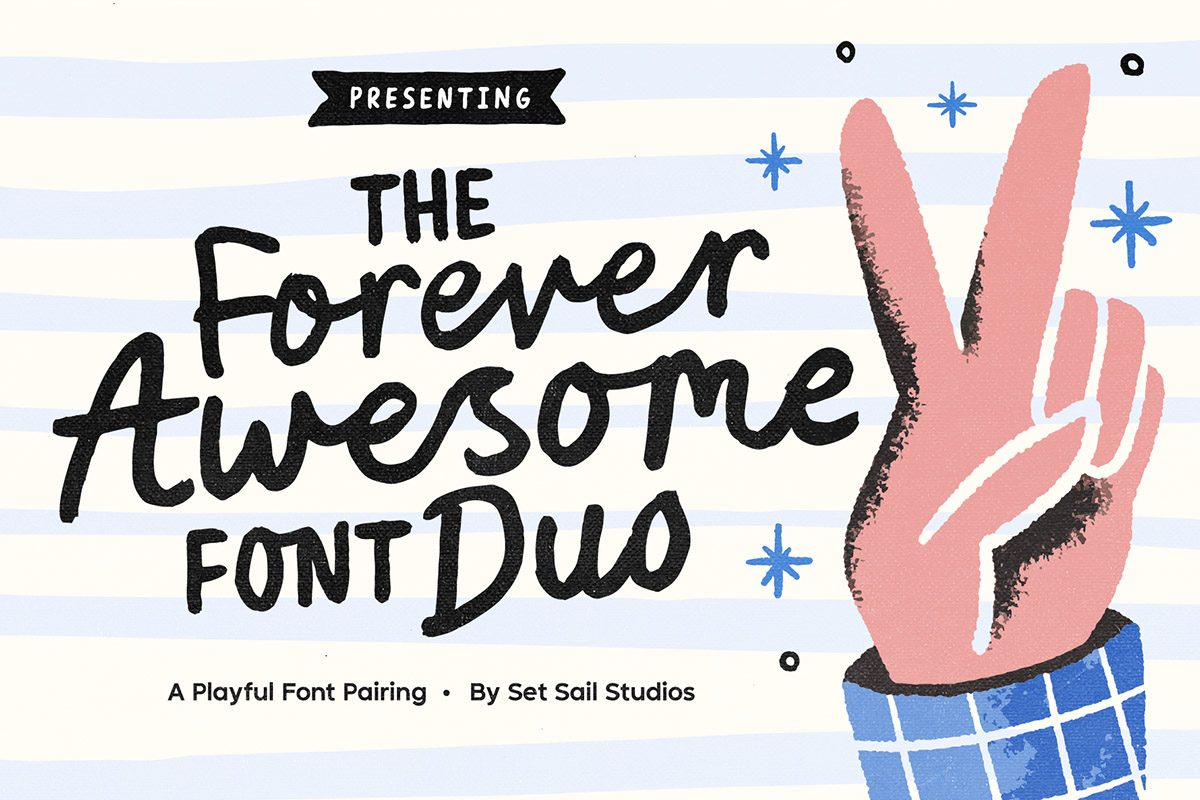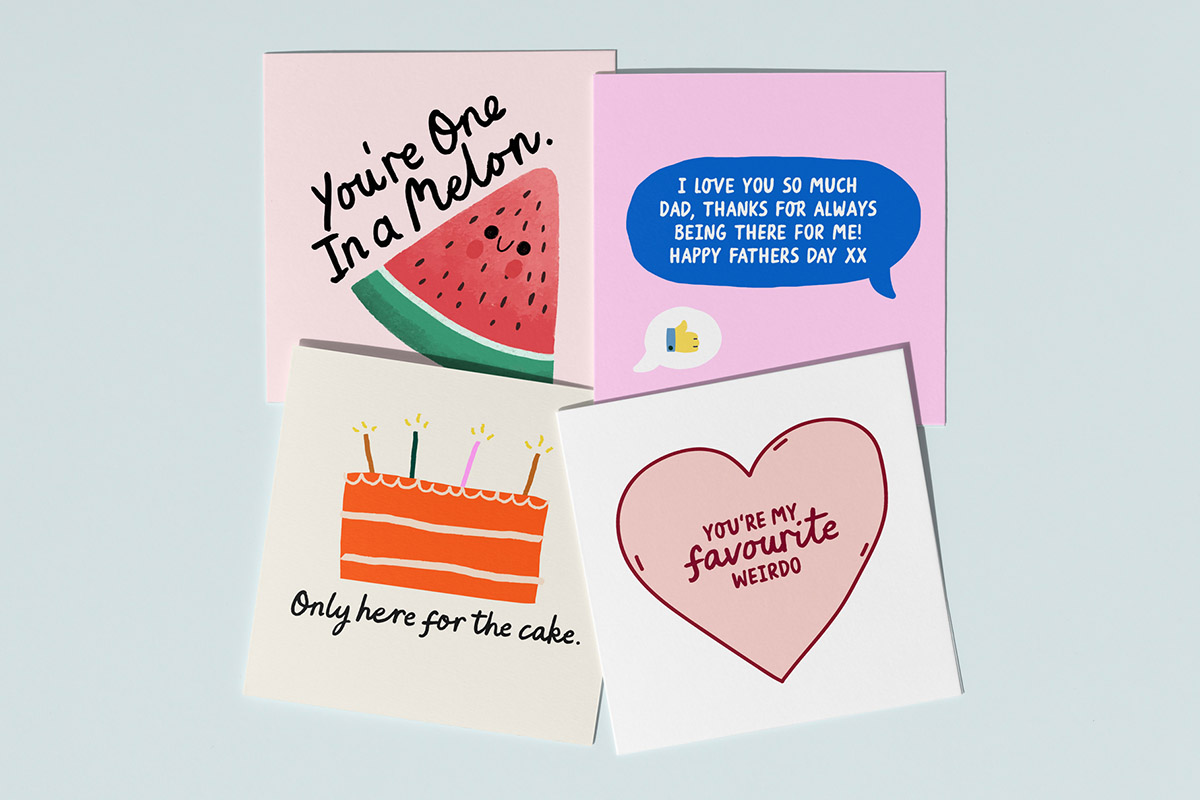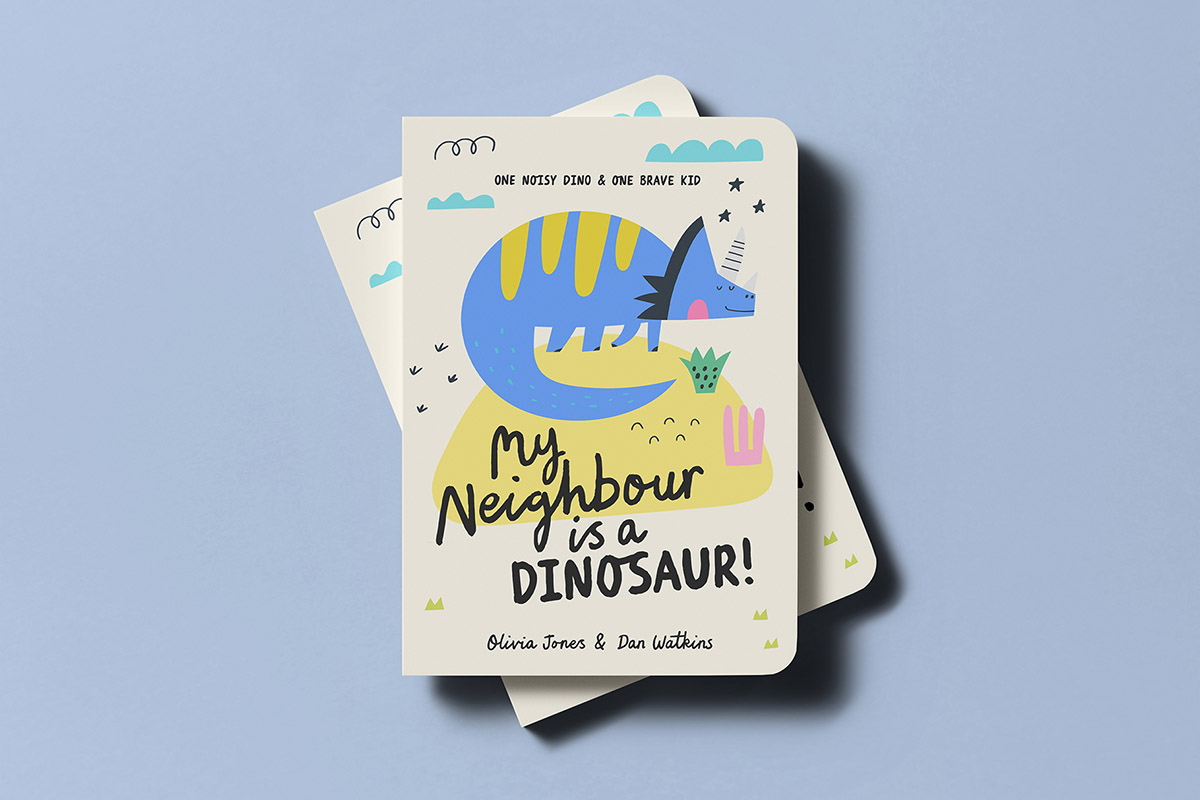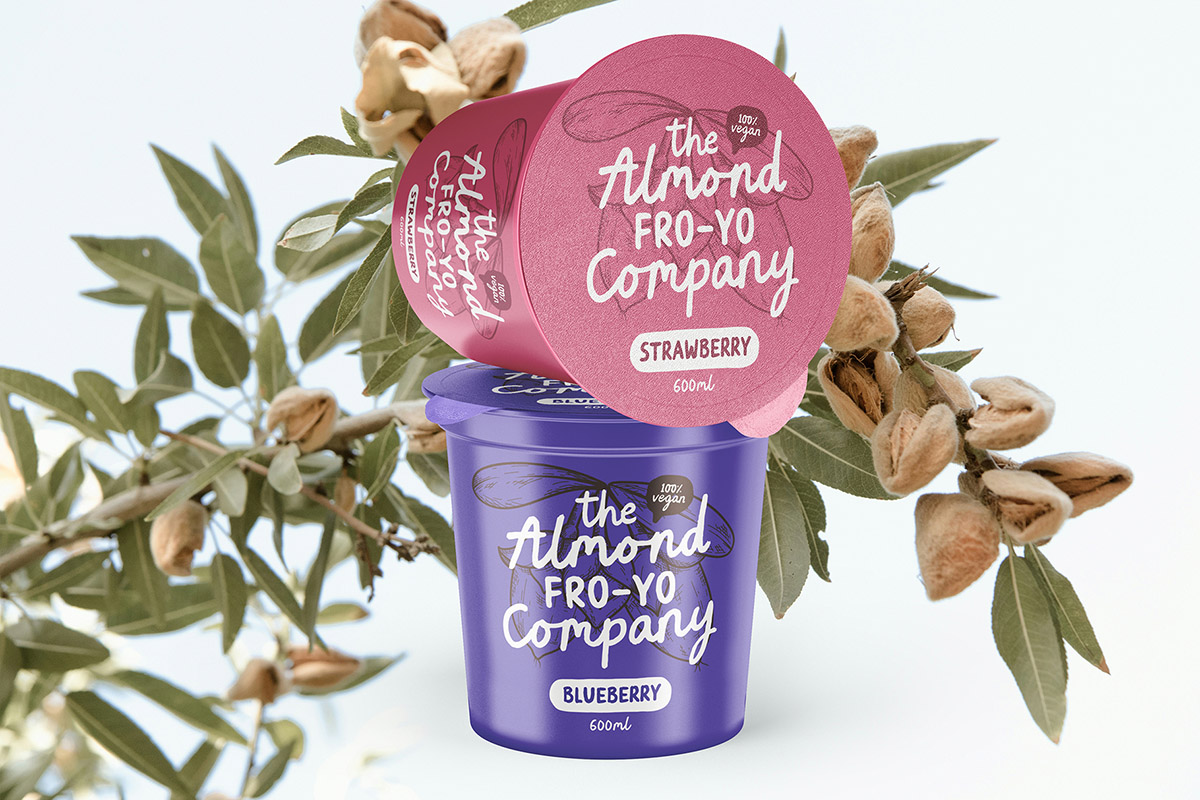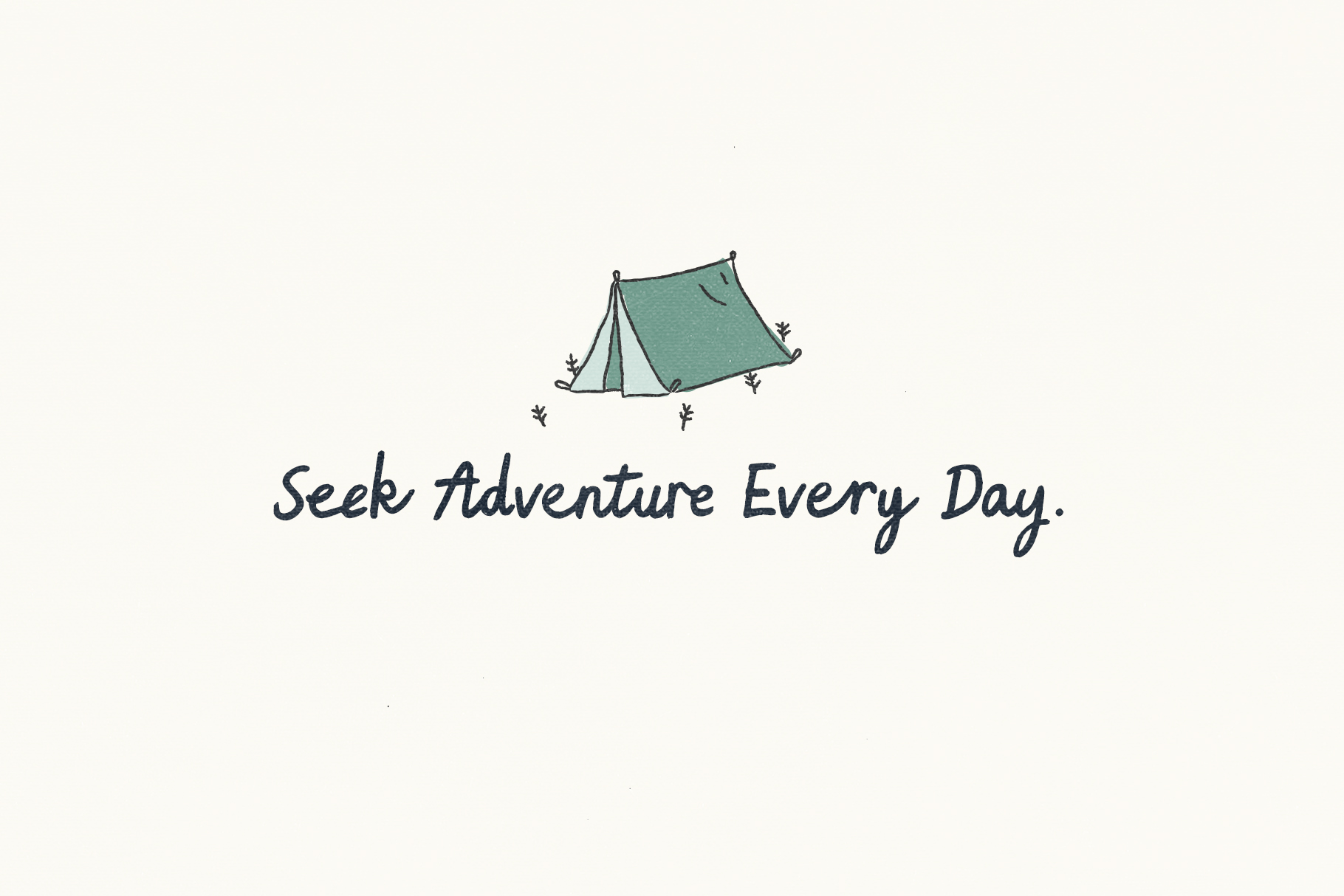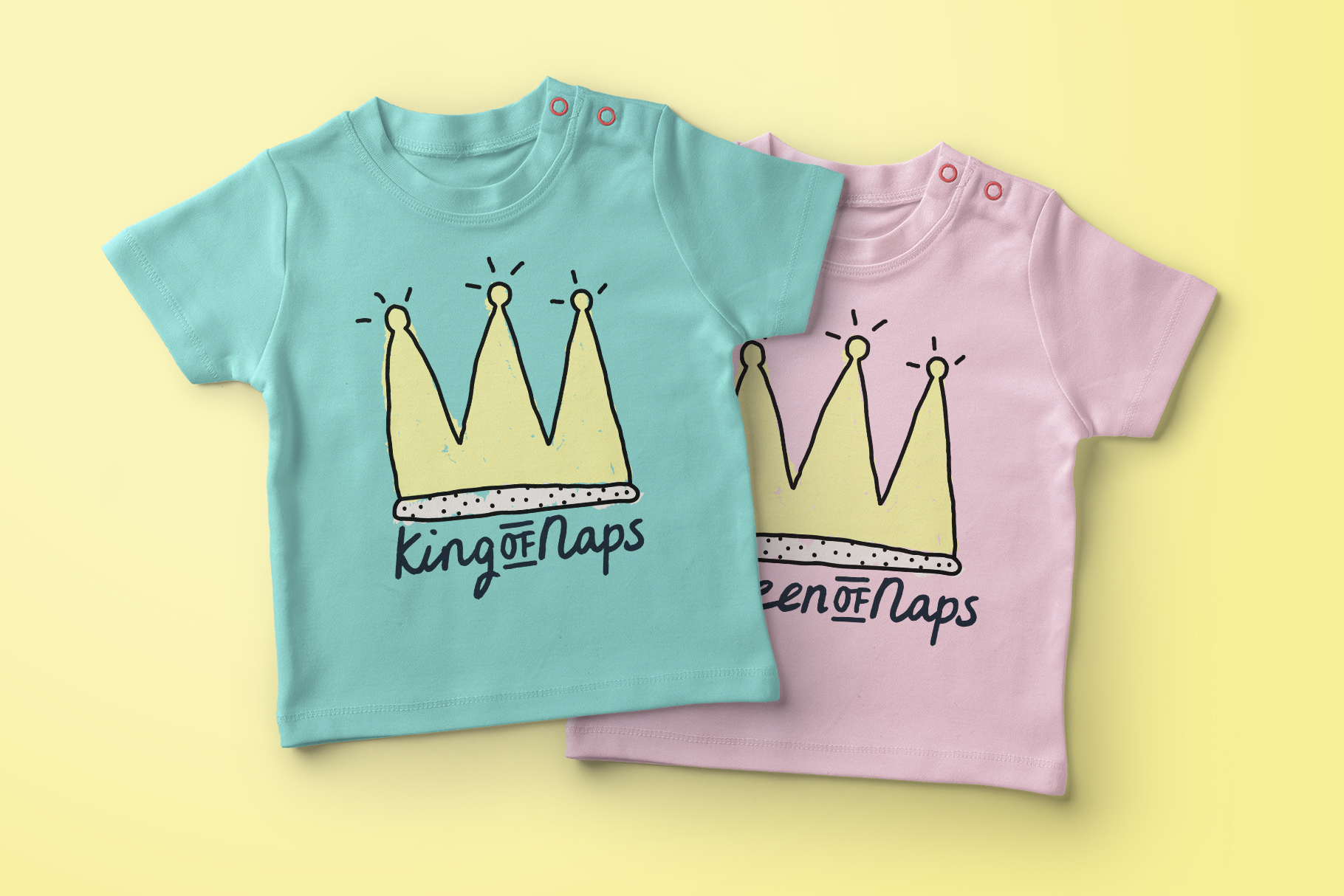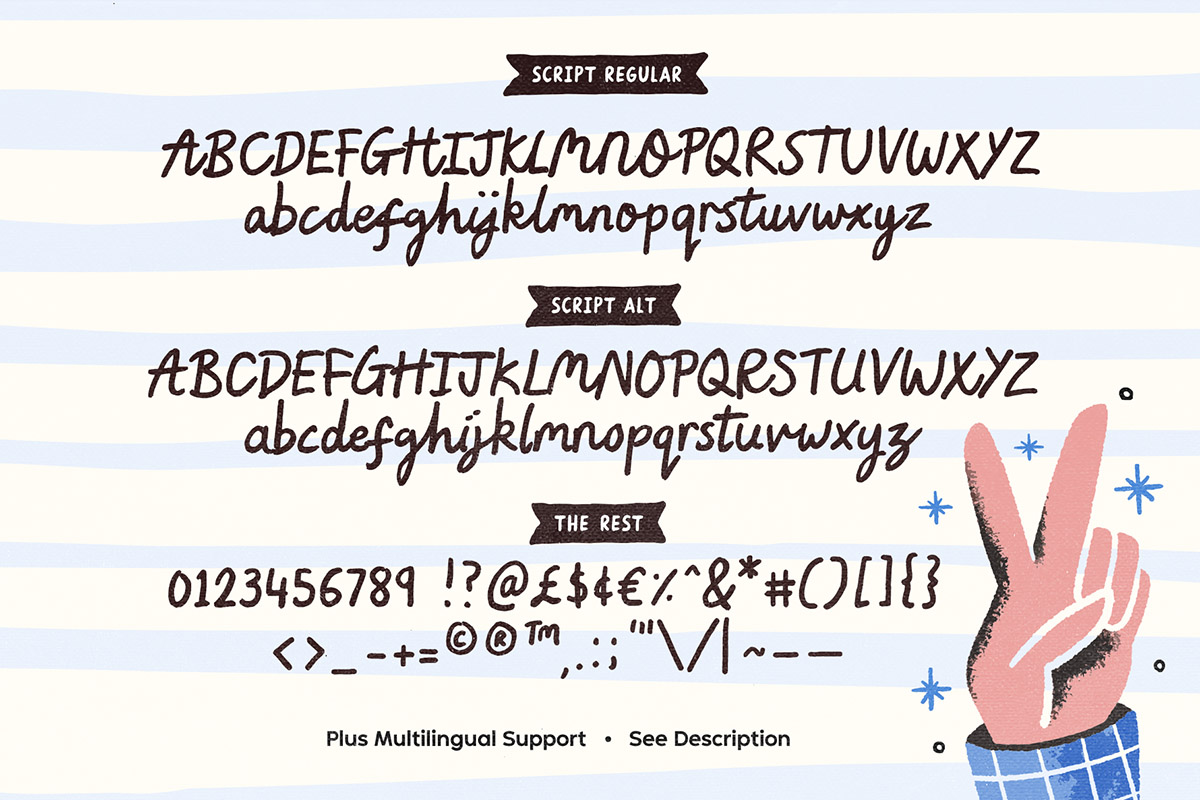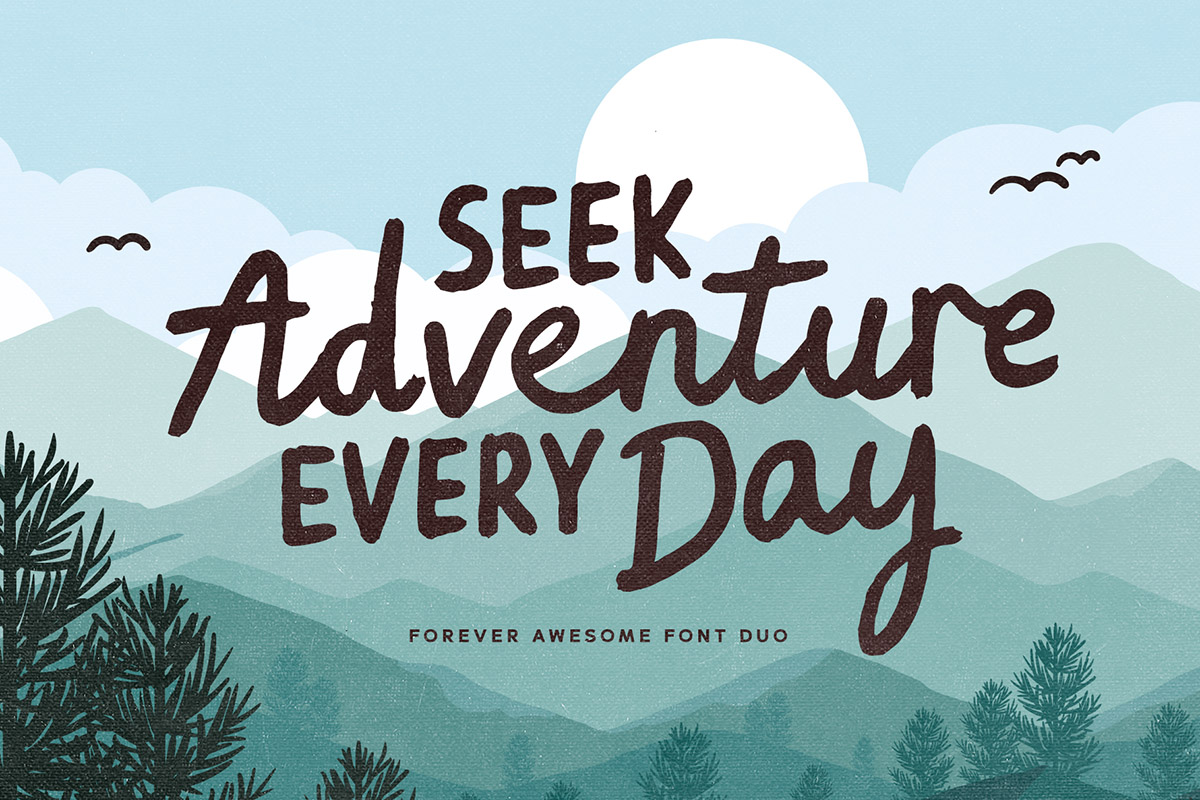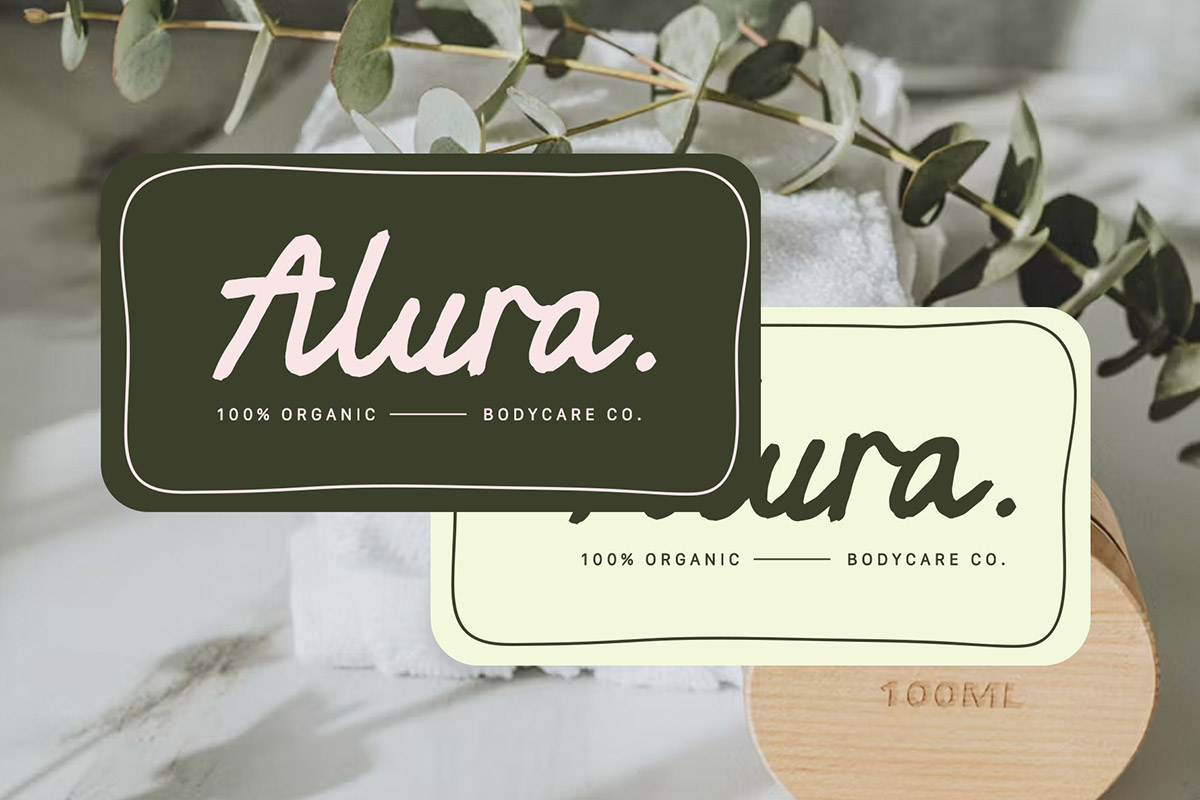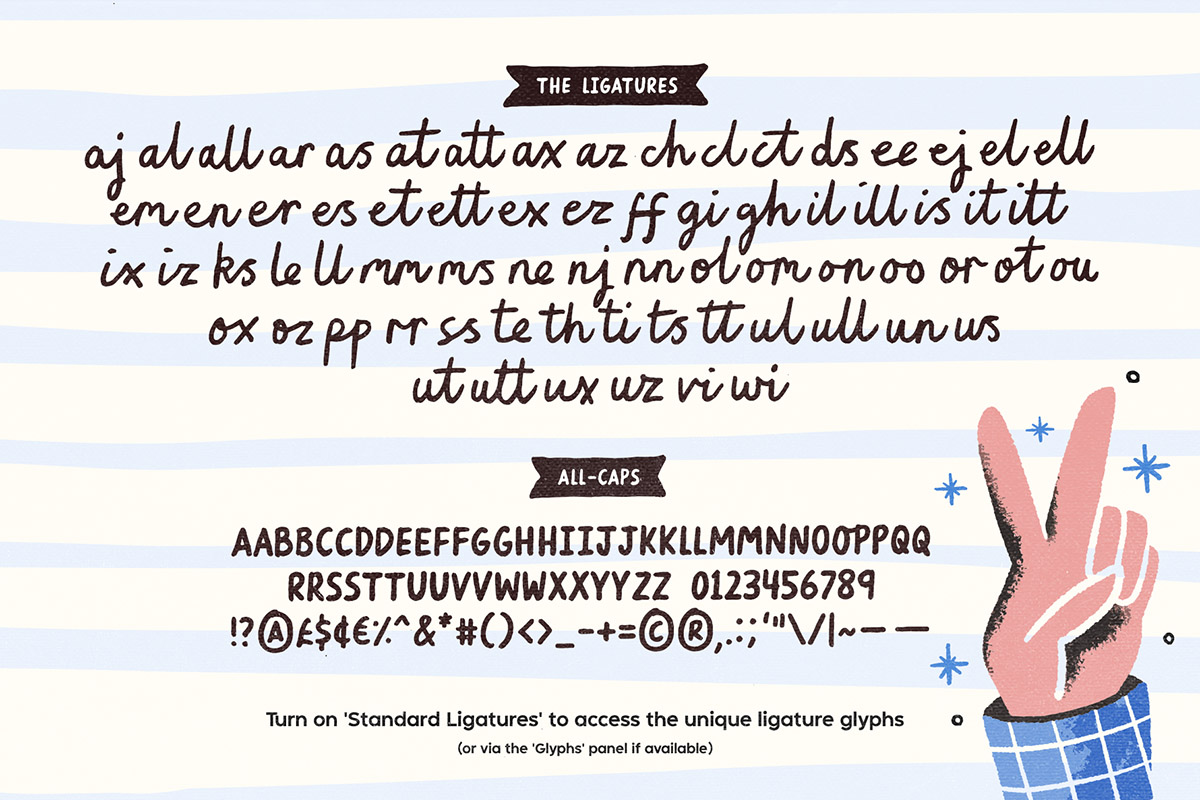
Introducing the Forever Awesome Font Duo! A delightfully playful set of hand-drawn fonts, designed to mimic lively, imperfect and friendly lettering. It’s a charming choice for personal-feel logo designs, quotes, packaging, kid-friendly products, fun greeting cards and more.
Included in the set are three fonts. The Script font includes a full set of alternate upper and lowercase characters available as it’s own separate font, Script Alt. The Script fonts include 69 ligatures – these are unique double and triple letter combinations, designed to help letters flow more naturally and give you even more layout options for each word. Last but not least, there is an All Caps font included, containing 2 sets of uppercase characters (simply switch between upper and lowercase to access each set). This font set is perfectly designed to compliment the Script font, ideal for smaller sub-text, or when you want to go big with your all-caps lettering while avoiding letters clashing.